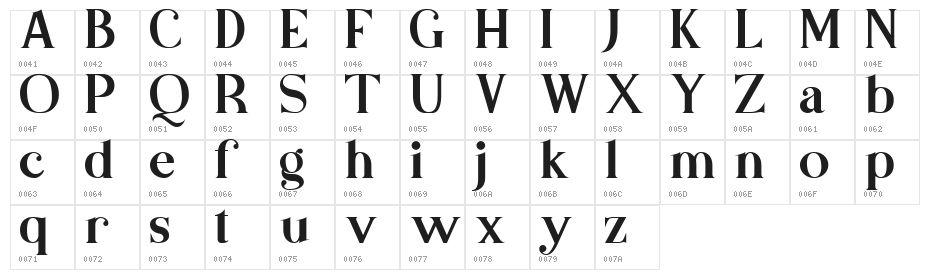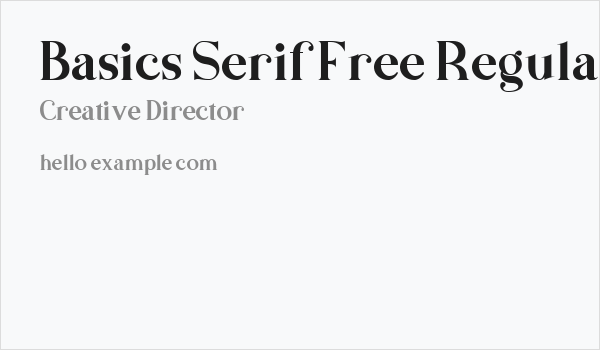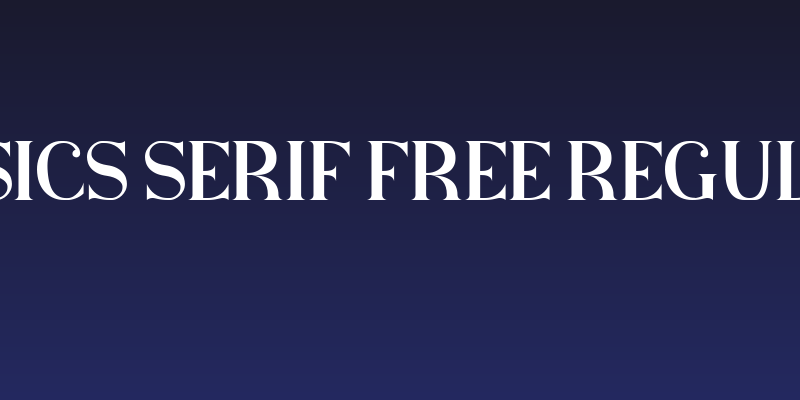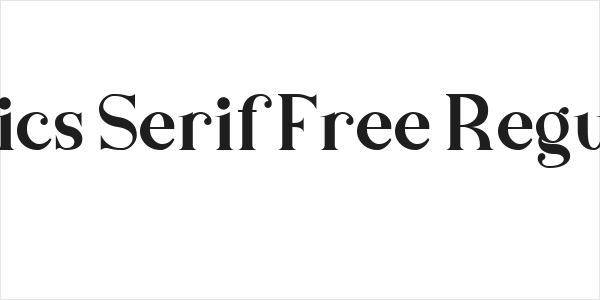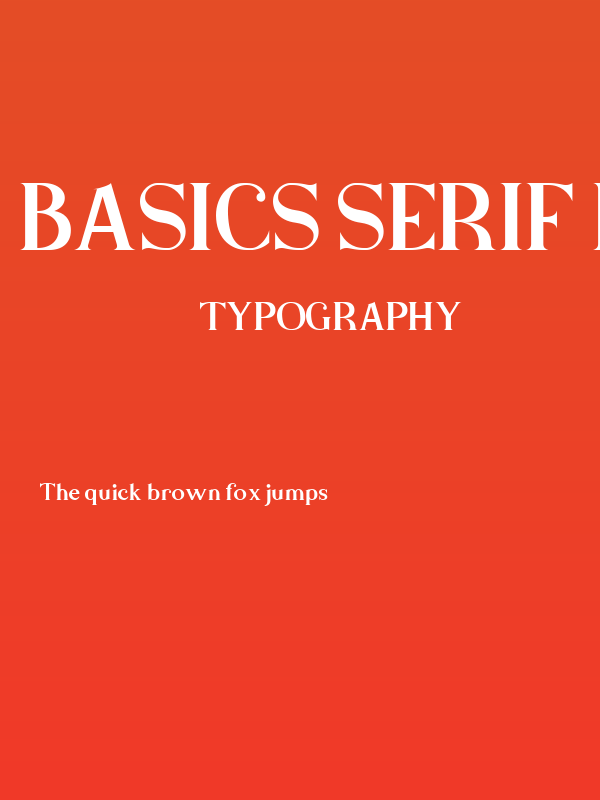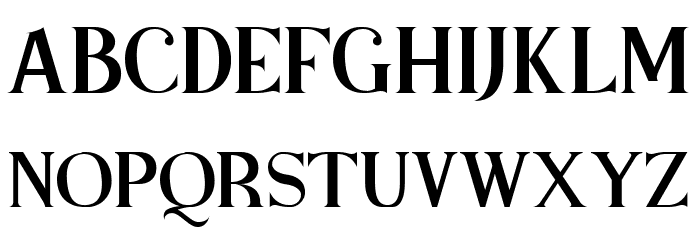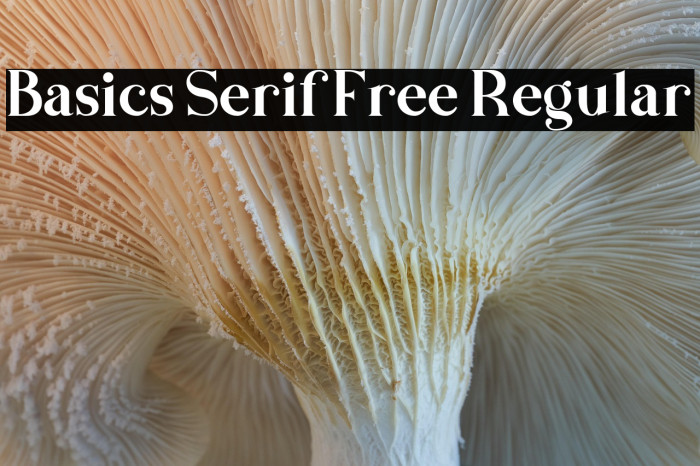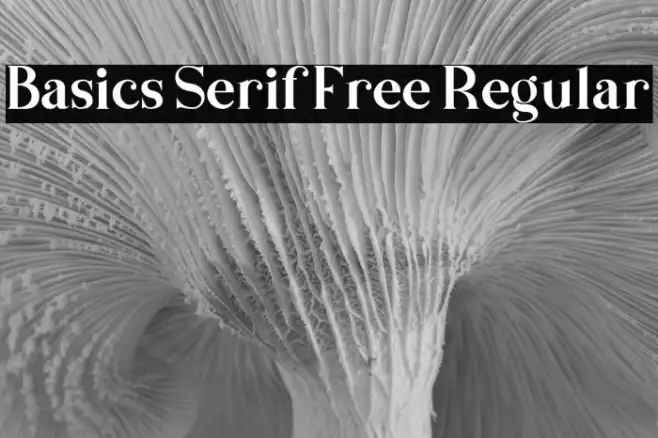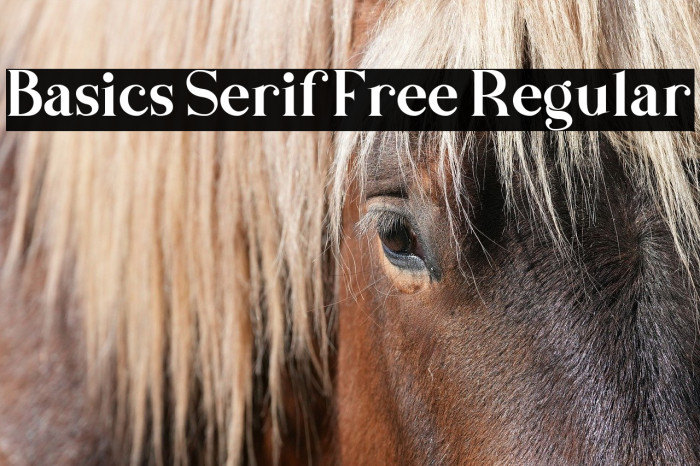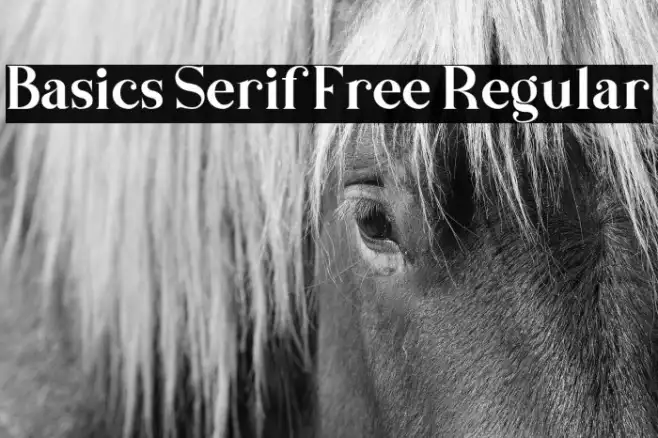
Basics Serif Free Regular Font
Basics Serif Free Regular Description
This serif font features a classic and elegant design, characterized by its sharp, clean lines and traditional serif details. The uppercase letters exhibit a strong presence with slightly flared serifs, while the lowercase letters maintain a balanced and harmonious appearance. The font's structure is well-proportioned, offering a timeless aesthetic that is both readable and sophisticated. The numerals are consistent with the overall style, providing clarity and uniformity. Special characters are thoughtfully designed, ensuring versatility across various applications.
| Proposed Projects | Ideal for editorial design, book covers, formal invitations, and branding projects requiring a touch of sophistication. |